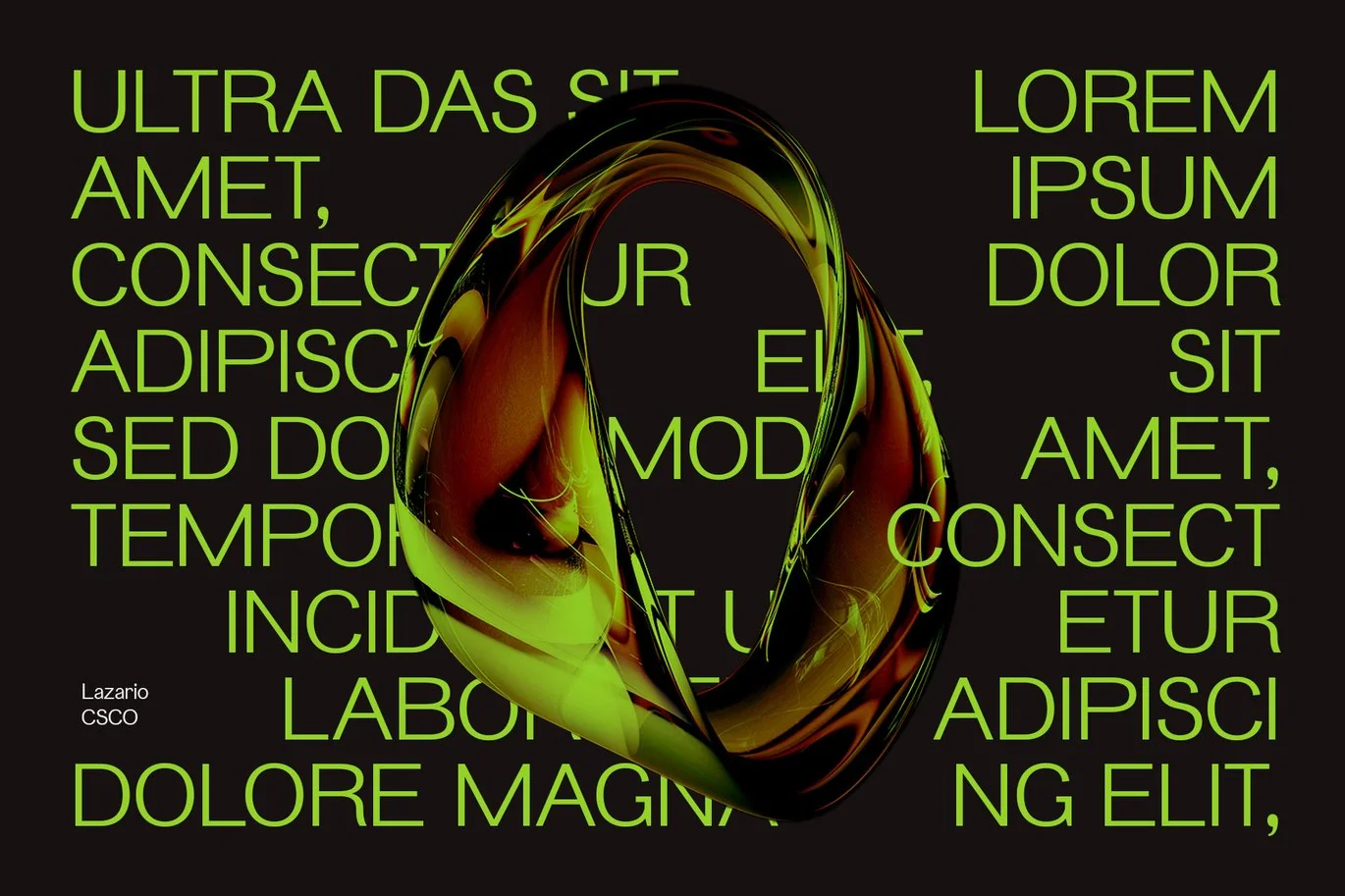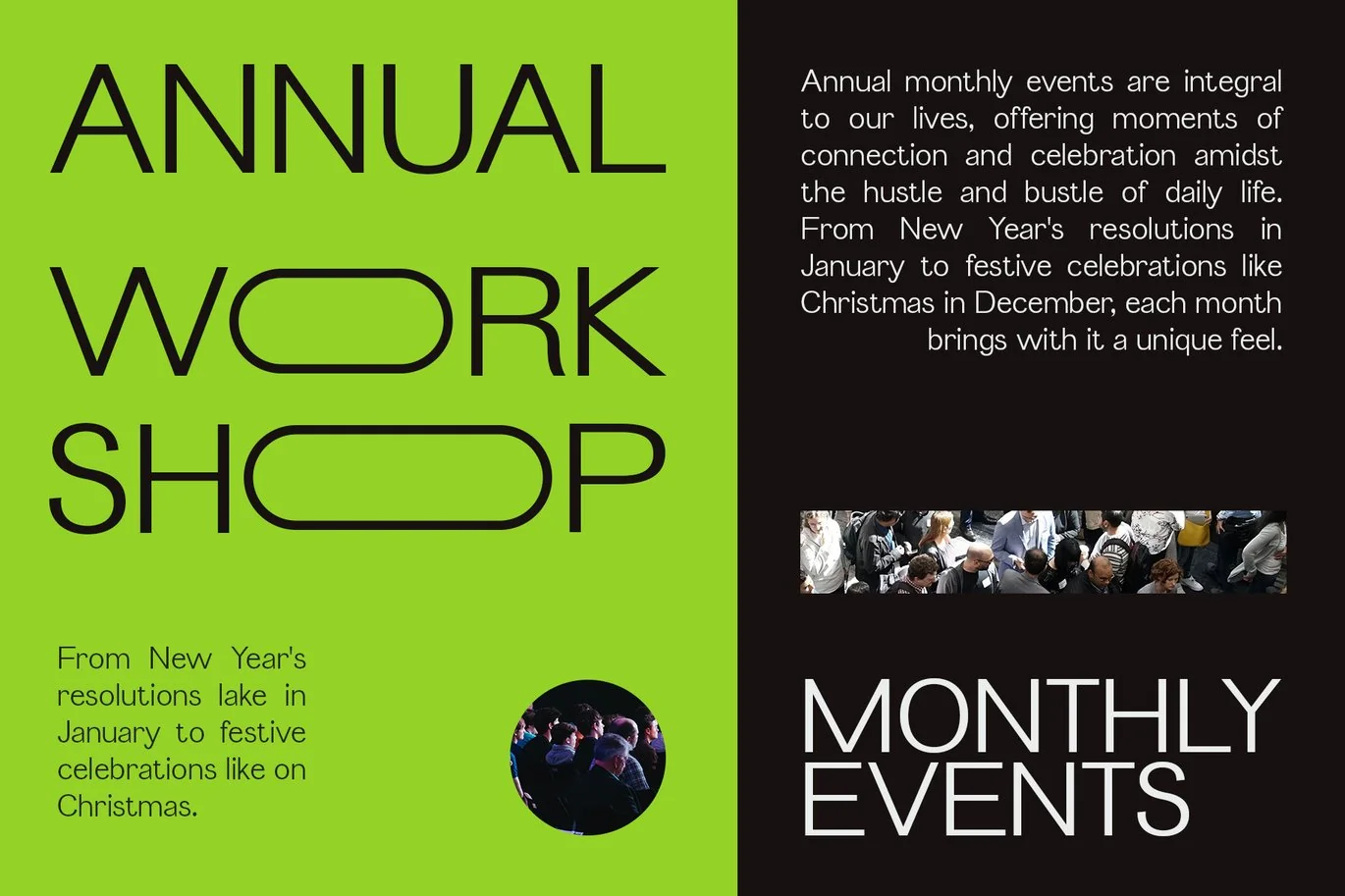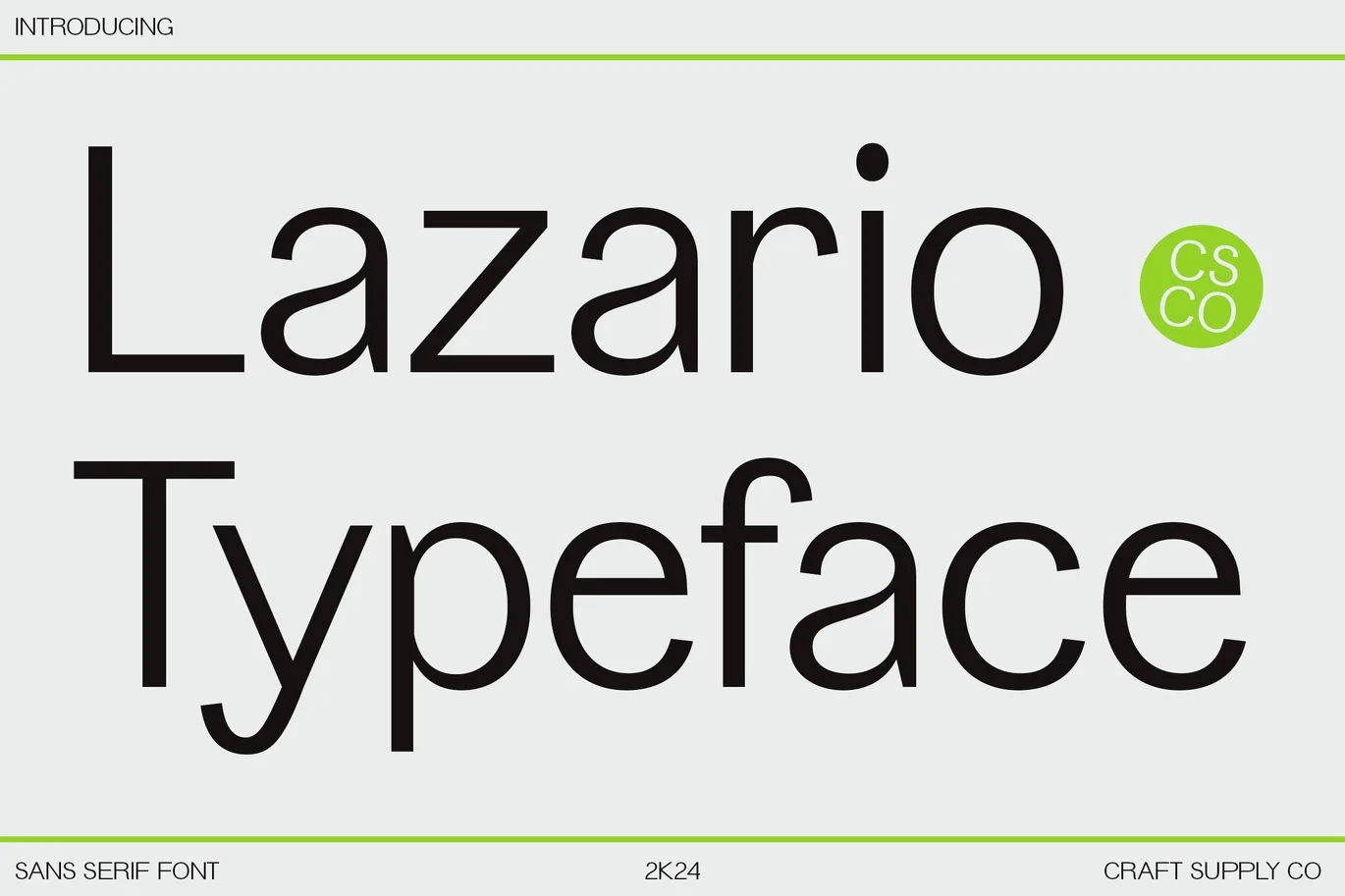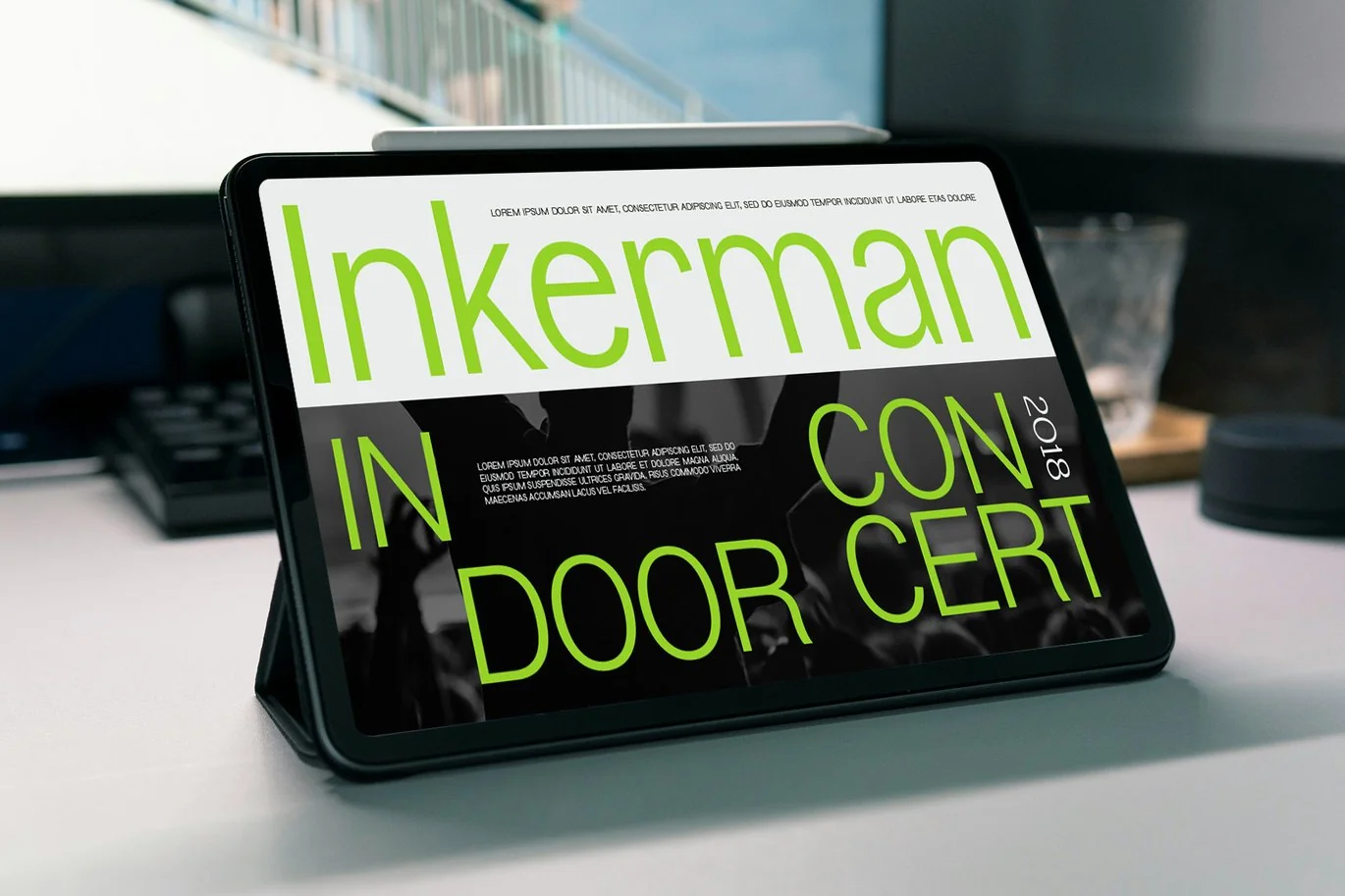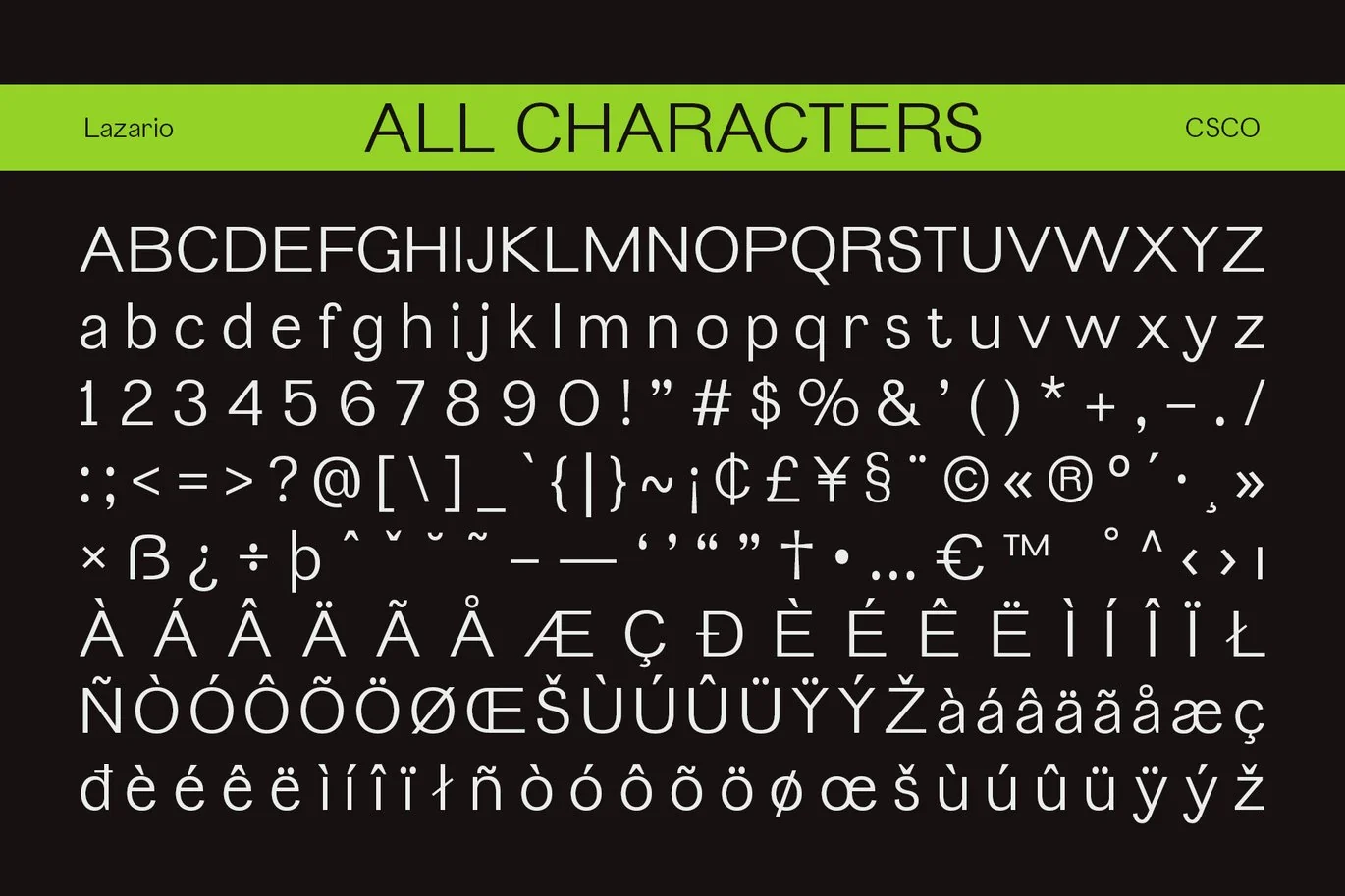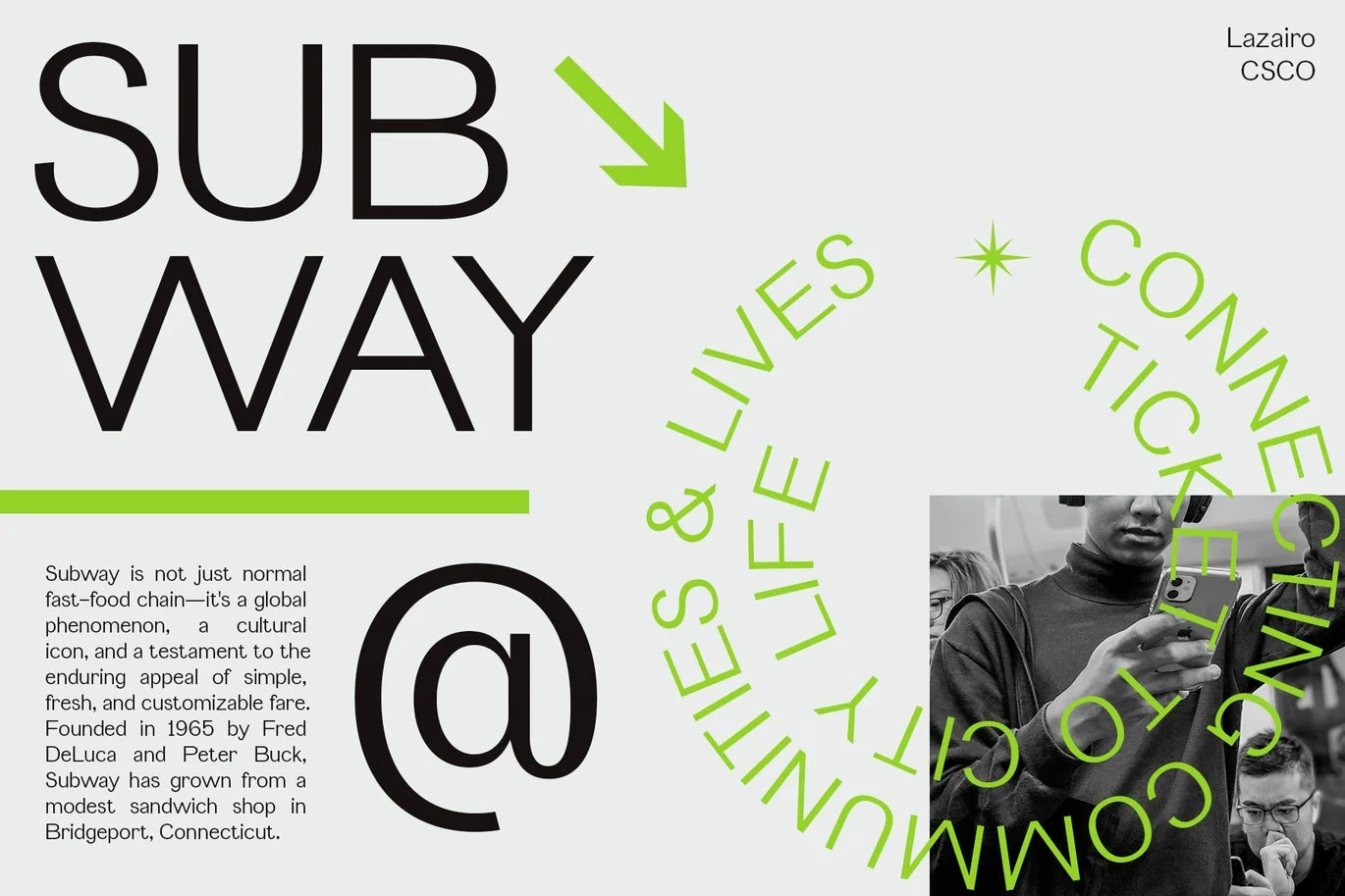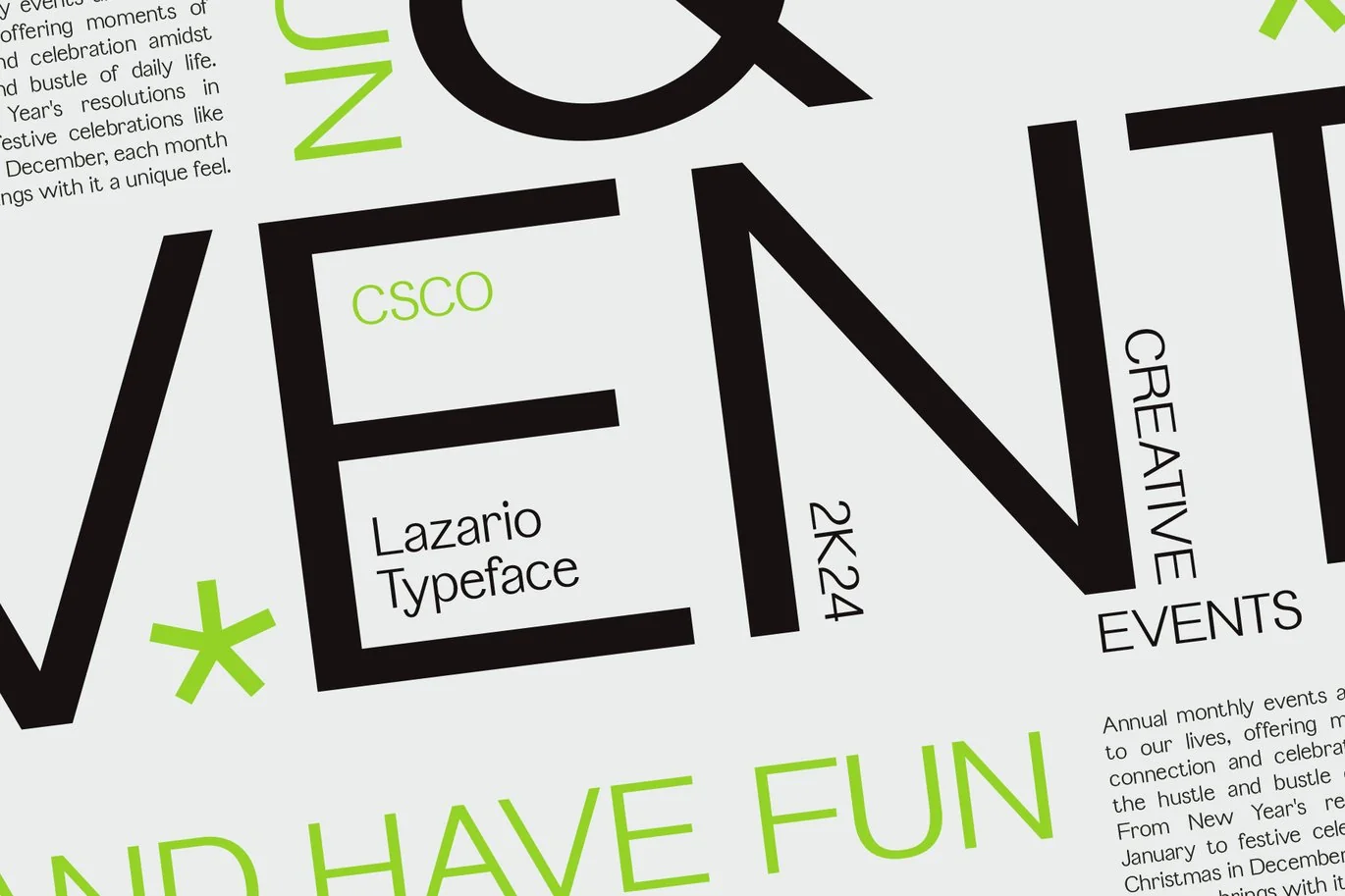
Lazario – Modern Font
Lazario – Modern Font: Where Simplicity Meets Professionalism
Sleek and Simple Sans-Serif Design
Lazario – Modern Font is a sleek and simple sans-serif font designed for professional use. Its clean lines and minimalist style make it perfect for a wide range of applications, from corporate documents to web design.
Versatile and Professional
With its versatile design, Lazario Font is suitable for a variety of uses, including headlines, body text, and branding. Its modern style adds a contemporary flair to any project, while its sans-serif details ensure a clean and streamlined look.
Enhanced Readability
Lazario Font prioritizes readability, ensuring that your message is clear and easy to understand. Whether used in print or digital media, this font maintains legibility even at small sizes.
Perfect for Professional Use
Whether you’re designing a business card, a website, or a presentation, Lazario Font is the perfect choice for projects that require a professional and modern aesthetic. Its timeless design ensures that your work will always look stylish and up-to-date.